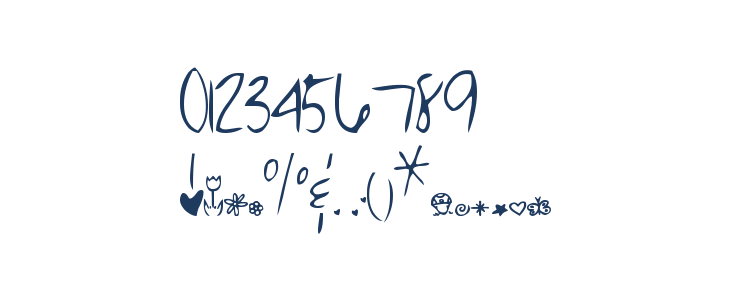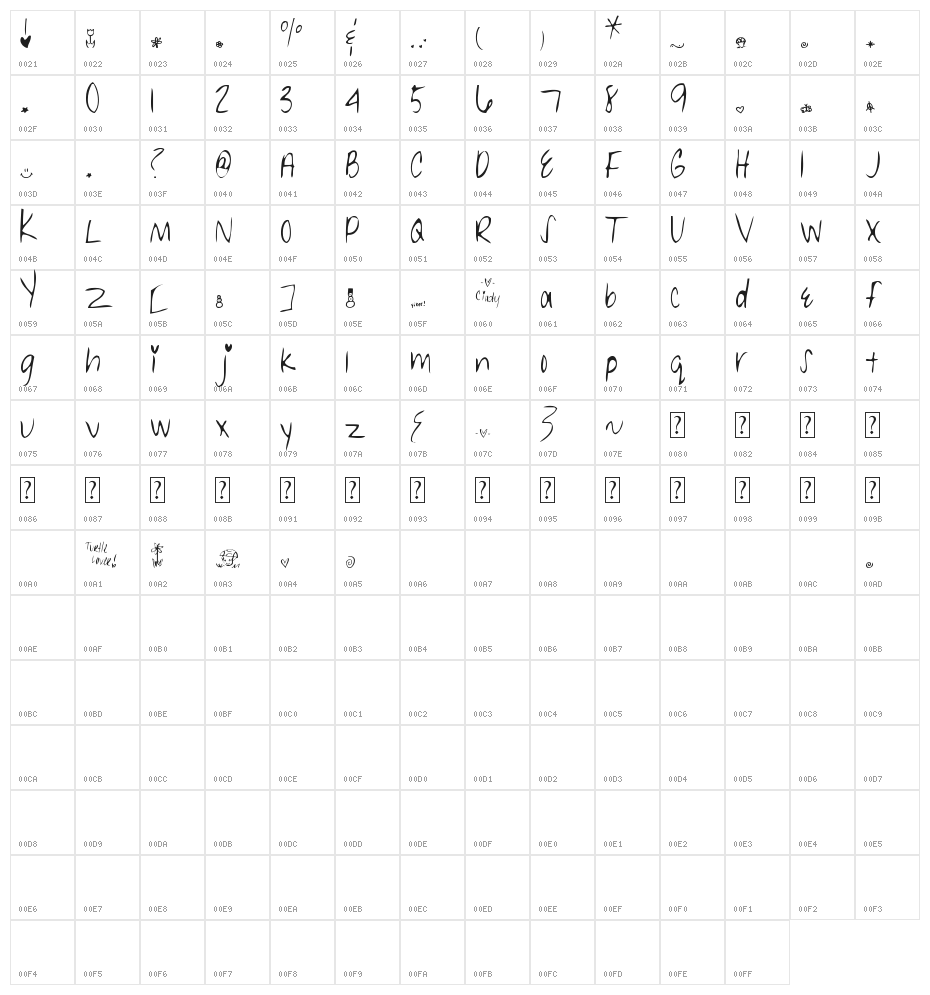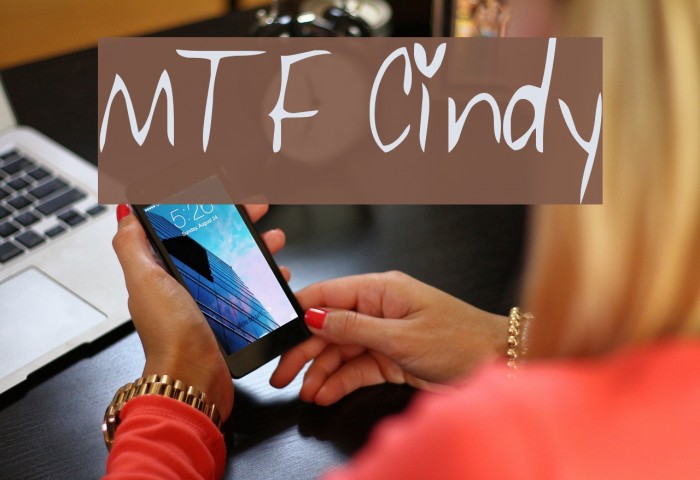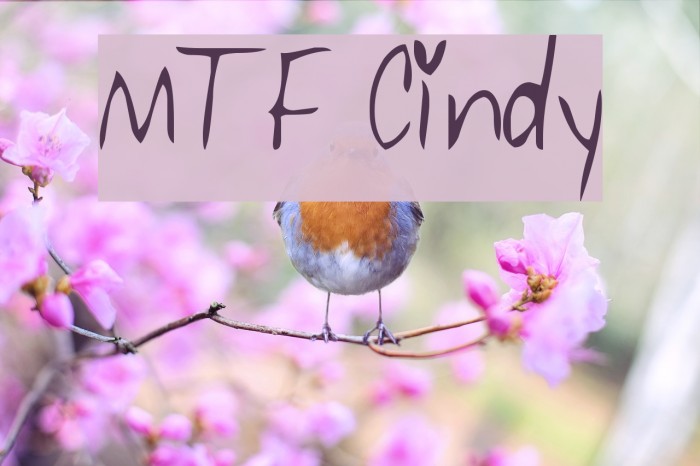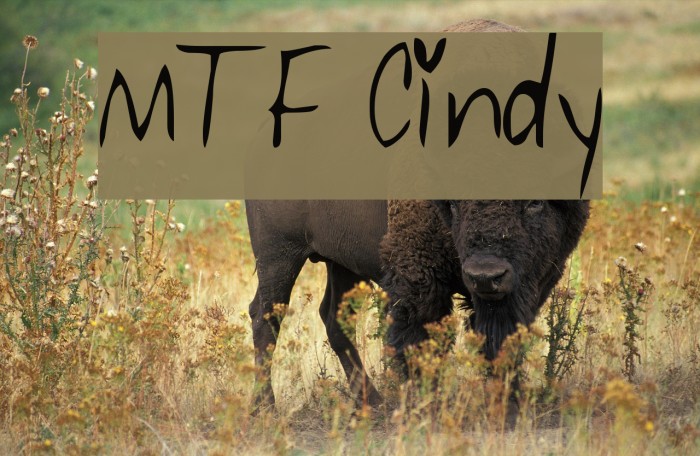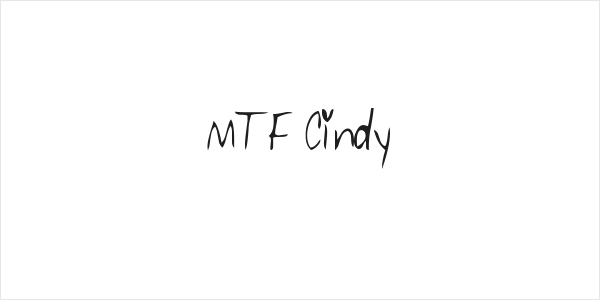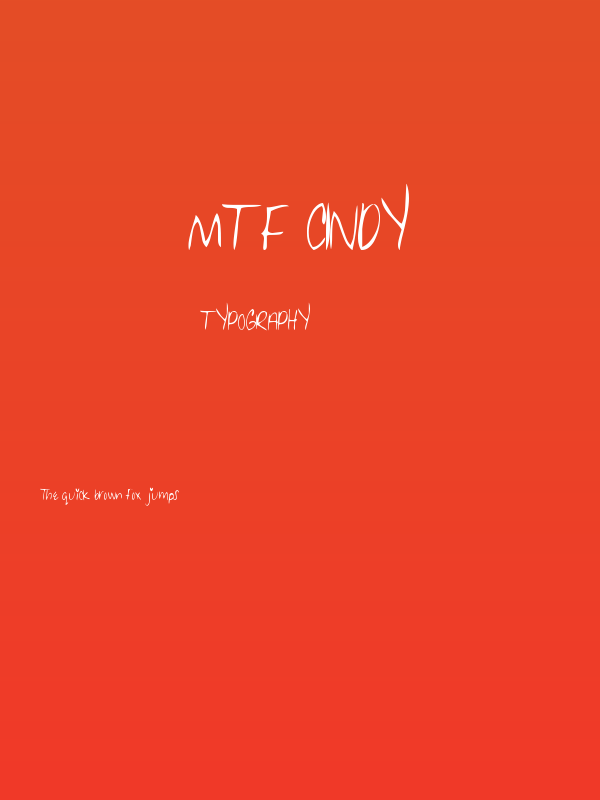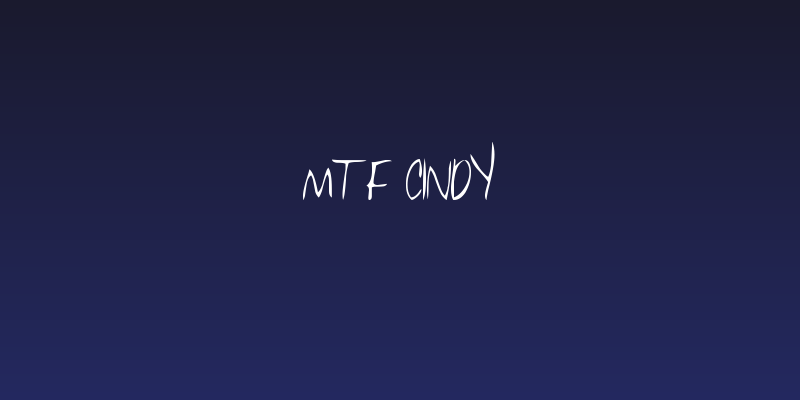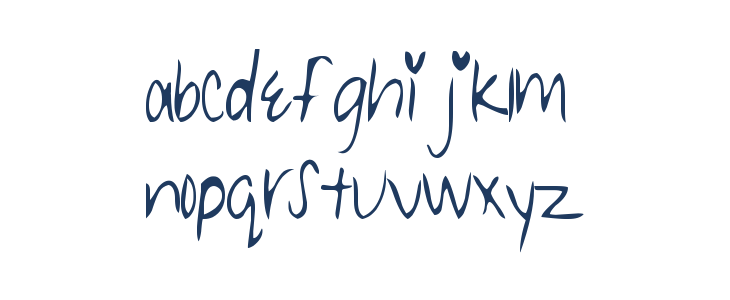
MTF Cindy Font
MTF Cindy Description
This playful and whimsical font features a handwritten style with a casual, flowing appearance. The letters have a lively and dynamic quality, with varying stroke widths that add a sense of movement and personality. The uppercase and lowercase letters are distinct, with some characters featuring unique embellishments like hearts and loops. The numbers are equally playful, maintaining the font's overall energetic vibe. Special characters include charming symbols like flowers and hearts, enhancing the font's decorative appeal. This font is perfect for projects that require a fun and informal touch.
| Proposed Projects | Ideal for greeting cards, children's books, playful branding, and creative invitations. |